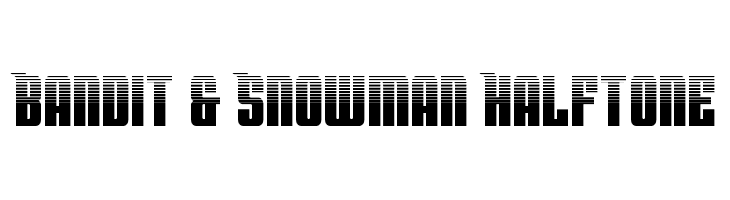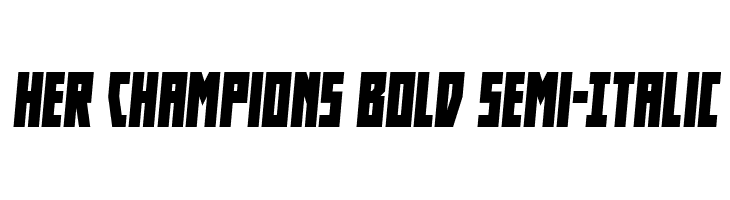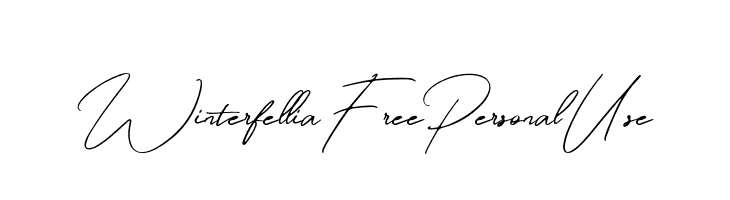
A bold, modern font with a halftone gradient effect, perfect for impactful headlines.
A playful, bold handwritten font with rounded edges and a casual style.
A tall, narrow, and modern geometric font with a sleek appearance.
A bold, playful handwritten font with expressive strokes and a lively character.
A bold, italic, and modern font with a futuristic design.
A tall, slim, and modern font with consistent thin strokes.
A bold, italic serif font with high contrast and dynamic style.
A bold, flowing script font with a playful and elegant style.
A graceful, cursive script font with flowing, connected characters and delicate strokes.